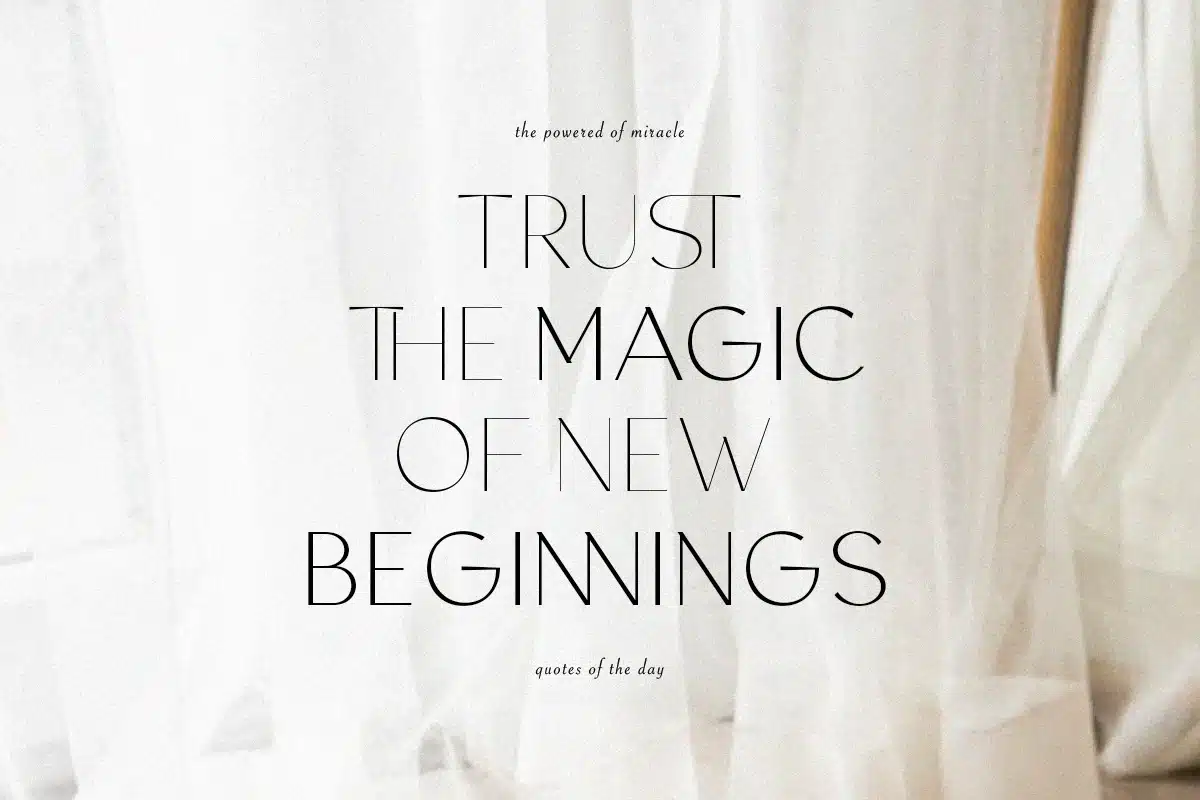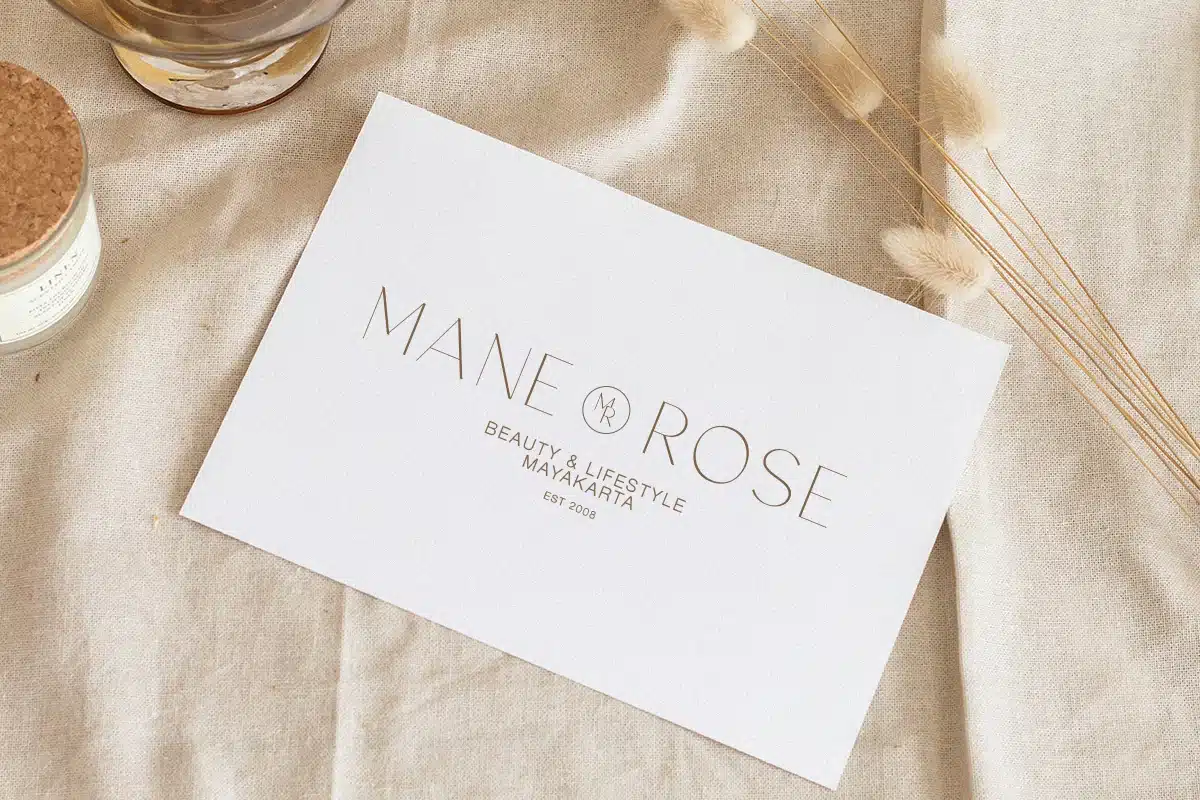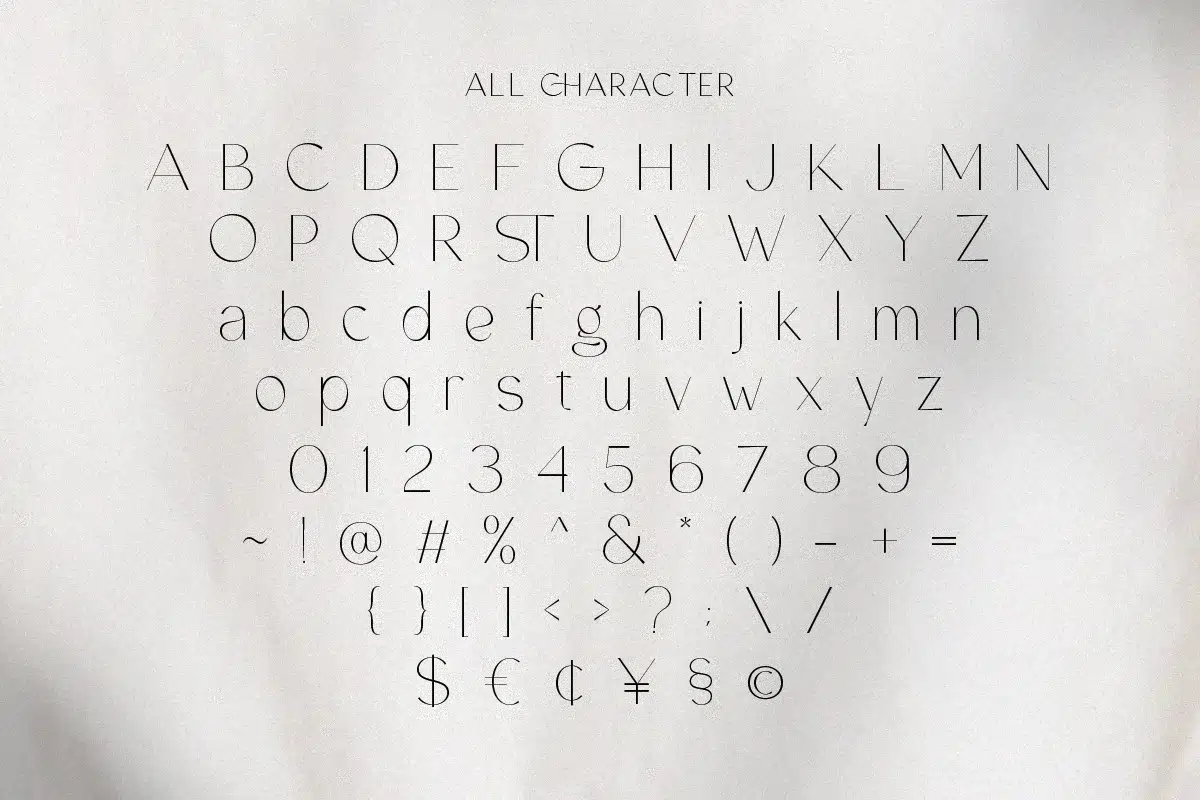
Calvary – Light Sans Font
Calvary is a light sans with bunch of ligatures and alternates. You can use this font for any project especially for project that need to looks elegant and luxurious. With beautiful and delicate ligatures and alternates, this font will make your project more minimalist yet stunning. Combine the ligatures and alternates with the regular base to get the best appearance. And you will get OTF/TTF file that you can install and use in any software designs especially Adobe Photoshop and Adobe Illustrator. This font also support multi language!